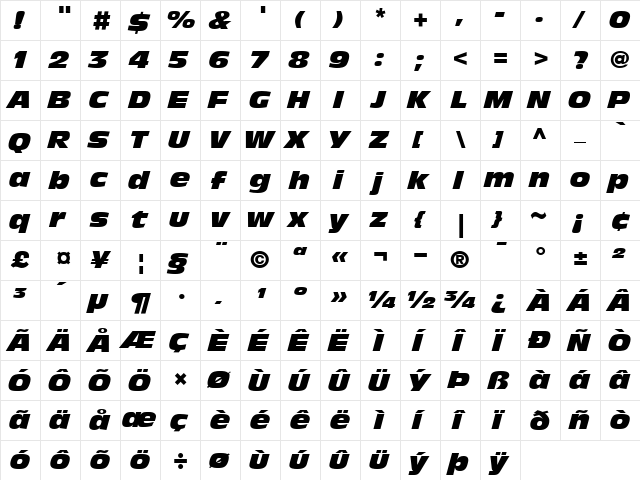
AntiqueOliveNord RomanItalic
Design Context for AntiqueOliveNord Typeface
AntiqueOliveNord has the warm character of retro typography — evoking diners, record sleeves, and the golden age of print advertising. Its italic angle brings a sense of urgency and motion to the letterforms.
Ideal for diner signage, record shop branding, 70s/80s-themed projects, and heritage product labels.
Font Pairing: Combine AntiqueOliveNord with a simple slab or neutral sans — period-accurate companions reinforce the vintage feel without competing for attention.
Pro Tip: Lean into AntiqueOliveNord's period character by pairing it with aged paper textures, muted colour palettes, and vintage illustration styles.